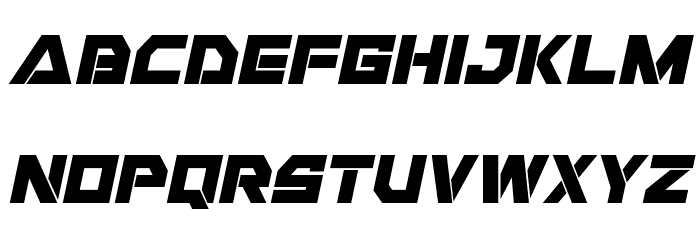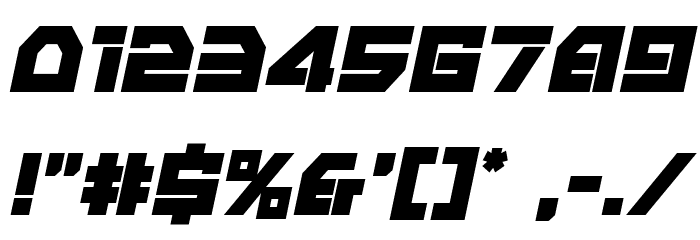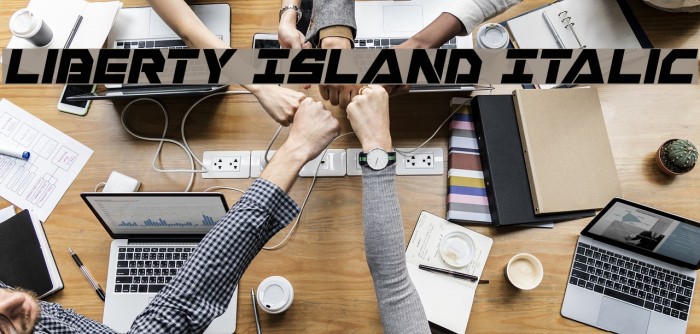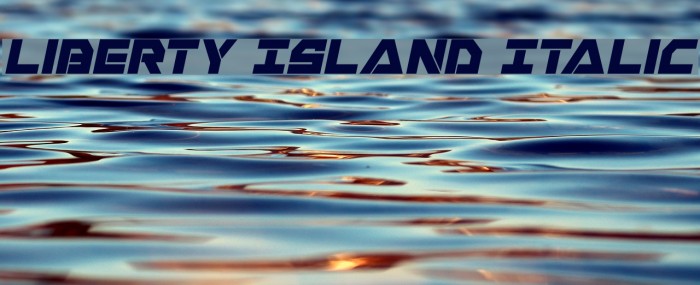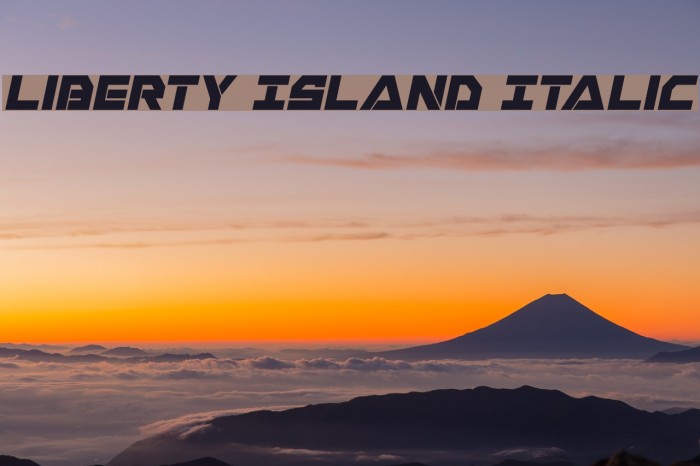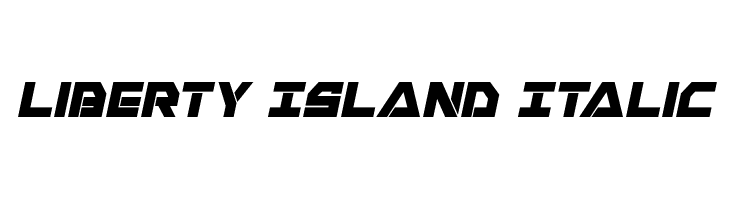
Liberty Island Italic Font
This font exhibits a bold and dynamic style with a strong geometric influence. The characters are sharply angled, creating a sense of movement and energy. The italic slant adds to its dynamic appearance, making it suitable for attention-grabbing headlines or logos. The uppercase letters are particularly striking, with a futuristic and modern aesthetic. The numbers and special characters maintain the same bold and angular design, ensuring consistency across all elements.
A bold, geometric, and italic font with a modern, dynamic style.
- Proposed Projects: Ideal for sports branding, tech company logos, or dynamic poster designs.